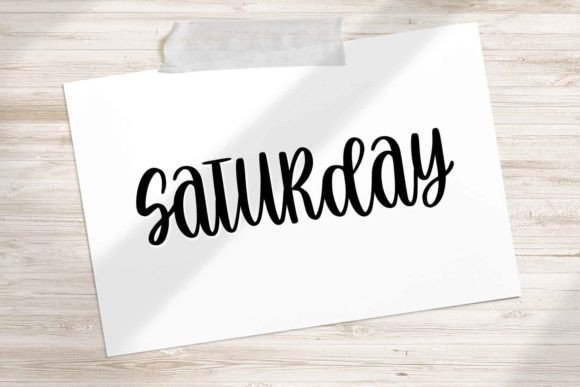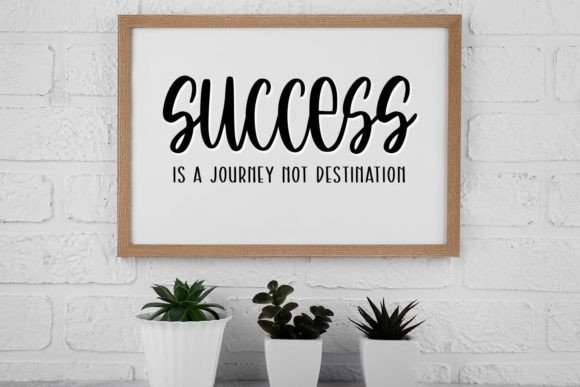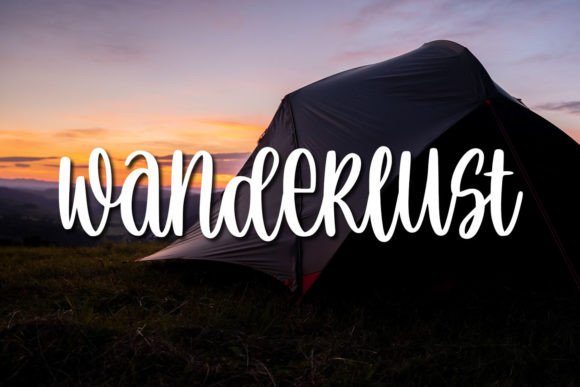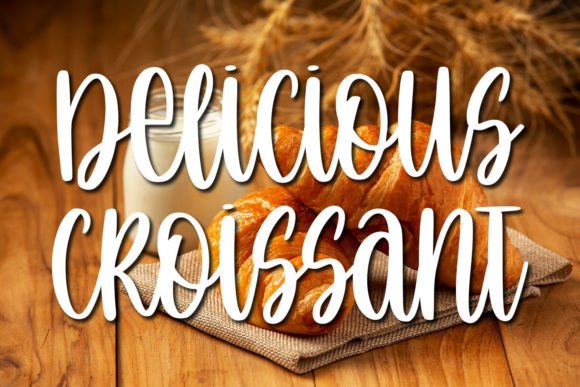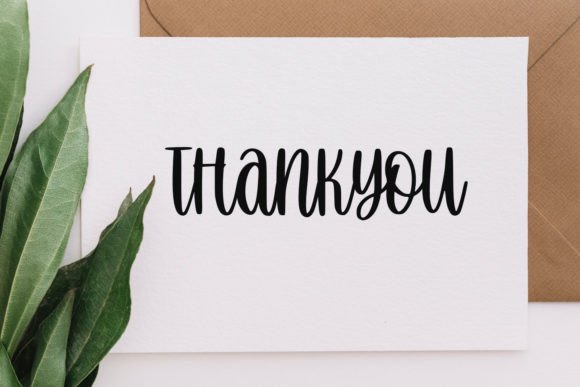
Introducing Gravinci Font: The Elegant and Dainty Handwritten Font for Crafty Designs
Are you a designer or crafter looking for a unique and elegant font to elevate your creative projects? Look no further than Gravinci Font, a beautiful handwritten font that features sweet and delicate swashes. With its original look and versatile style, Gravinci Font is perfect for a wide range of crafty ideas, from letterheads and titles to stationery and more.
What Makes Gravinci Font Special?
Gravinci Font is a one-of-a-kind handwritten font that boasts an elegant and dainty appearance. Its sweet and delicate swashes add a touch of sophistication and refinement to any design, making it ideal for projects that require a level of luxury and poise. Whether you’re creating a brand identity, designing a wedding invitation, or crafting a bespoke stationery set, Gravinci Font is sure to impress.
Key Features of Gravinci Font
- Elegant and Dainty Design: Gravinci Font features a beautiful, handwritten design that exudes elegance and refinement.
- Sweet and Delicate Swashes: The font’s sweet and delicate swashes add a touch of sophistication and luxury to any design.
- Versatile Style: Gravinci Font is perfect for a wide range of crafty ideas, from letterheads and titles to stationery and more.
- Original Look: With its unique and original design, Gravinci Font is sure to stand out from the crowd.
How to Use Gravinci Font in Your Designs
Gravinci Font is incredibly versatile and can be used in a variety of design projects. Here are a few ideas to get you started:
- Letterheads and Titles: Use Gravinci Font to create elegant and sophisticated letterheads and titles that make a lasting impression.
- Stationery: Add a touch of luxury to your stationery designs with Gravinci Font’s delicate swashes and elegant design.
- Wedding Invitations: Make your wedding invitations truly special with Gravinci Font’s beautiful and refined design.
- Branding and Identity: Use Gravinci Font to create a unique and memorable brand identity that sets you apart from the competition.
Why Designers and Crafters Love Gravinci Font
Designers and crafters love Gravinci Font for its unique and elegant design. Here are a few reasons why:
- Unique and Original: Gravinci Font’s original design makes it a standout from other fonts on the market.
- Elegant and Refined: The font’s elegant and refined design makes it perfect for projects that require a level of sophistication and luxury.
- Versatile: Gravinci Font can be used in a wide range of design projects, from letterheads and titles to stationery and more.
- Easy to Use: Gravinci Font is easy to use and can be easily integrated into your design workflow.
In conclusion, Gravinci Font is a beautiful and elegant handwritten font that features sweet and delicate swashes. With its original look and versatile style, Gravinci Font is perfect for a wide range of crafty ideas, from letterheads and titles to stationery and more. Whether you’re a designer or crafter, Gravinci Font is sure to elevate your creative projects and add a touch of luxury and sophistication.